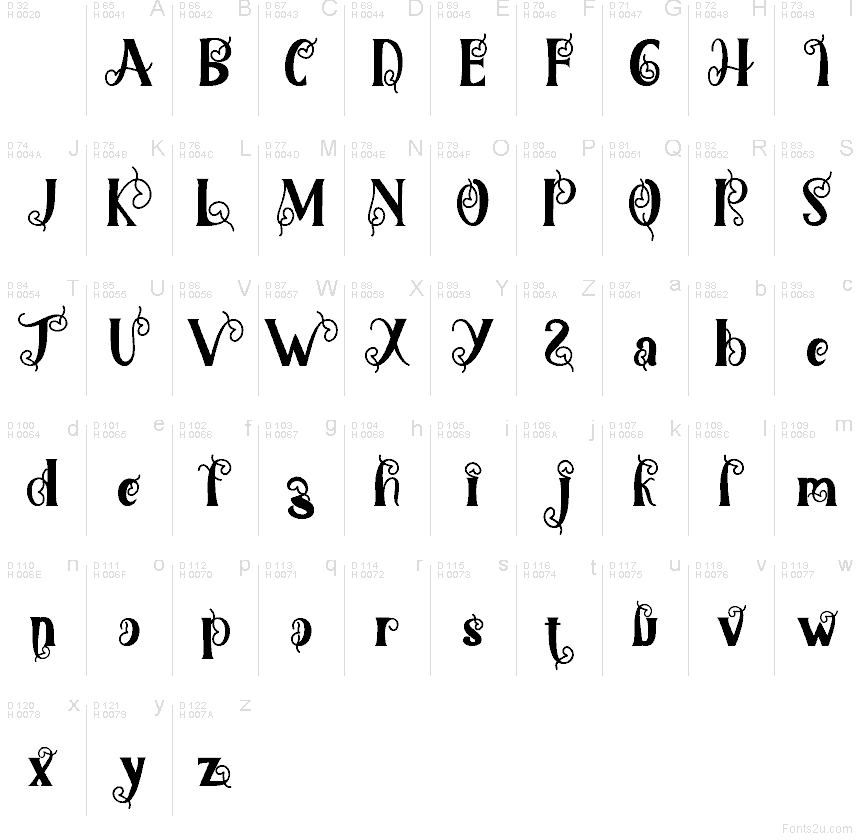
Birthday Heart
Birthday Heart font by Yoga Letter is a free decorative holiday typeface with a romantic, storybook twist. Chunky letterforms sprout curling vines and tiny hearts, giving every word the feel of a hand-crafted card or love note. The strokes are bold enough to stay legible while all the twirls, loops, and leafy curls add a sense of magic and celebration.
Using Birthday Heart, your text instantly feels ready for a party or a love letter: Valentine cards, birthday invitations, kids’ party posters, cupcake labels, social media greetings, and festive banners all shine with this free font. It works best as a big, expressive headline, paired with a simple sans serif for the small print so the ornate details can really breathe.